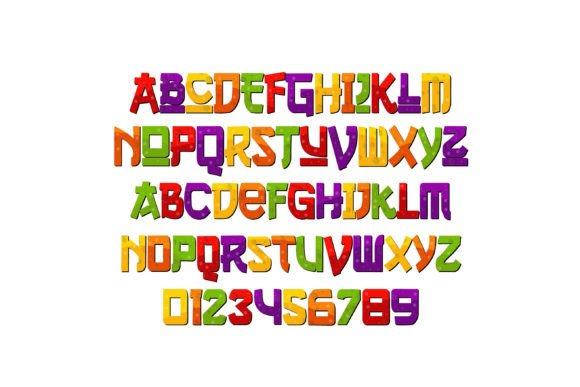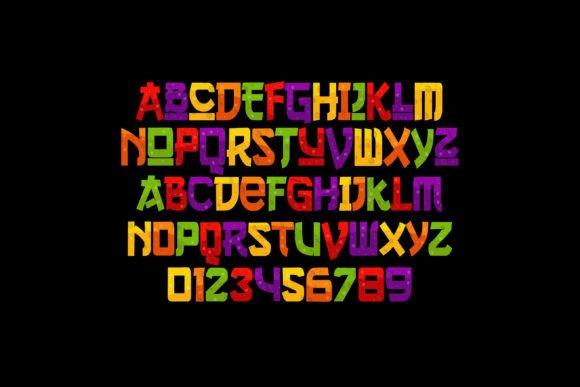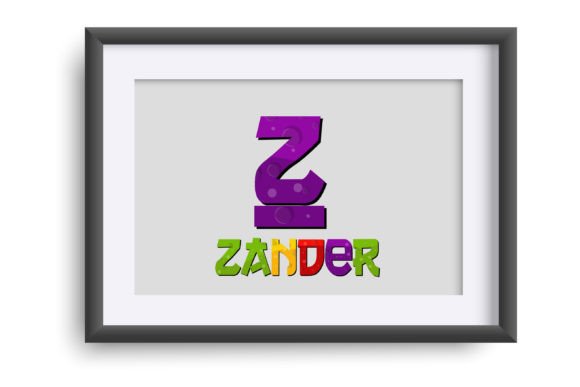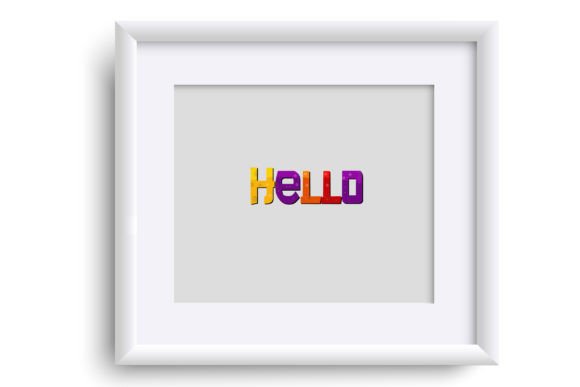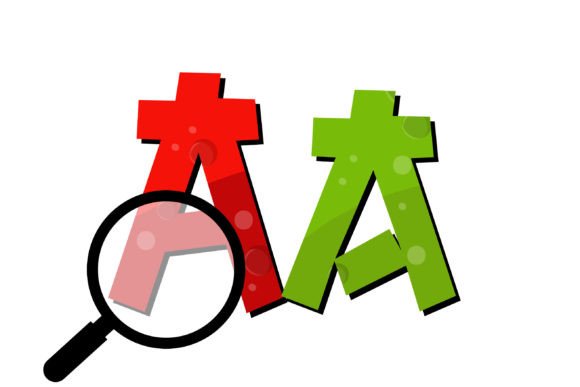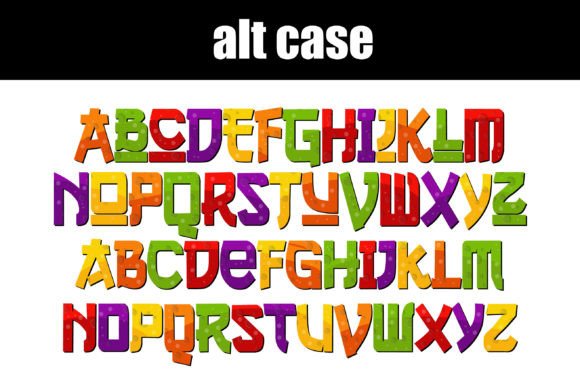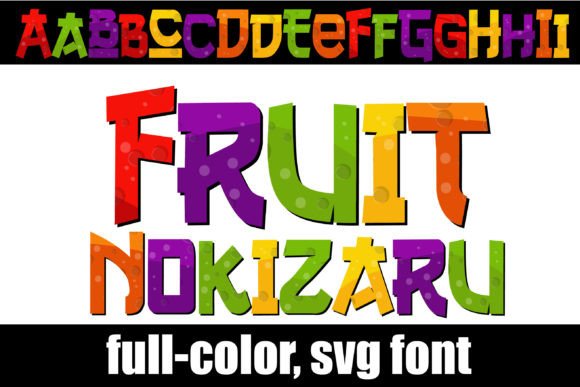
Fruit Nokizaru Font: A Ninja-Inspired Masterpiece for Designers and Crafters
Are you tired of using the same old fonts for your designs? Look no further! Introducing the Fruit Nokizaru Font, a full-color font that combines ninja-style elegance with vibrant fruit-like designs. This unique font is perfect for titles, displays, posters, and more, and is sure to make your designs stand out from the crowd.
What is Fruit Nokizaru Font?
Fruit Nokizaru Font is a one-of-a-kind, full-color font that features ninja-style designs infused with colorful fruit-inspired elements. The font comes with an alternate case that includes additional colors, which can be accessed through your system or Silhouette’s glyph map. This means you have even more creative freedom to experiment with different color combinations and designs.
- Full-color font: Fruit Nokizaru Font is a full-color font, which means you can enjoy vibrant, high-quality designs that will make your projects pop.
- Ninja-style designs: The font features ninja-inspired designs, perfect for crafters and designers who love a touch of edginess in their work.
- Fruit-like elements: The font incorporates colorful fruit-like elements, adding a playful and whimsical touch to your designs.
- Alt case with additional colors: The font comes with an alternate case that includes extra colors, giving you even more creative freedom.
Why Choose Fruit Nokizaru Font?
Fruit Nokizaru Font is the perfect choice for designers and crafters who want to add a unique touch to their work. Here are just a few reasons why:
- Unique designs: The font features one-of-a-kind ninja-style designs with fruit-like elements, ensuring your projects will stand out.
- High-quality: The font is a full-color font, guaranteeing high-quality designs that will impress.
- Versatile: Fruit Nokizaru Font is perfect for various design projects, from titles and displays to posters and more.